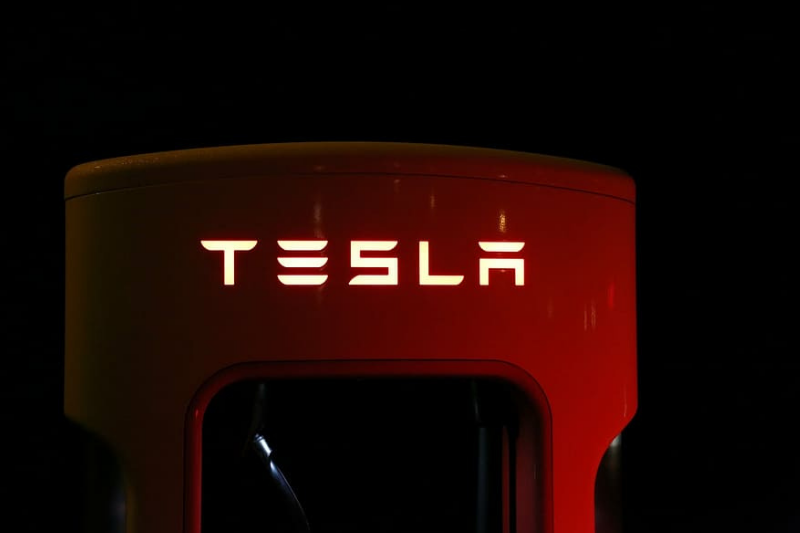
Tesla Font Generator
Give your text a cutting-edge look with our free Tesla font generator β€” sleek, modern lettering inspired by the tech titan's clean aesthetic, ready to copy or download.
About the Tesla Font Generator
Tesla's visual identity is defined by minimalist precision β€” clean lines, sharp geometry, and a futuristic confidence that signals innovation at a glance. The Tesla font generator lets you apply that same sleek, tech-forward typographic style to your own text, whether you're building a tech brand, creating fan content, or designing something that needs to feel boldly modern.
• Tech startup branding and pitch deck graphics
• Electric vehicle enthusiast social media content
• YouTube thumbnails for automotive and tech channels
• Fan merchandise and custom print designs
• Futuristic event posters and promotional graphics